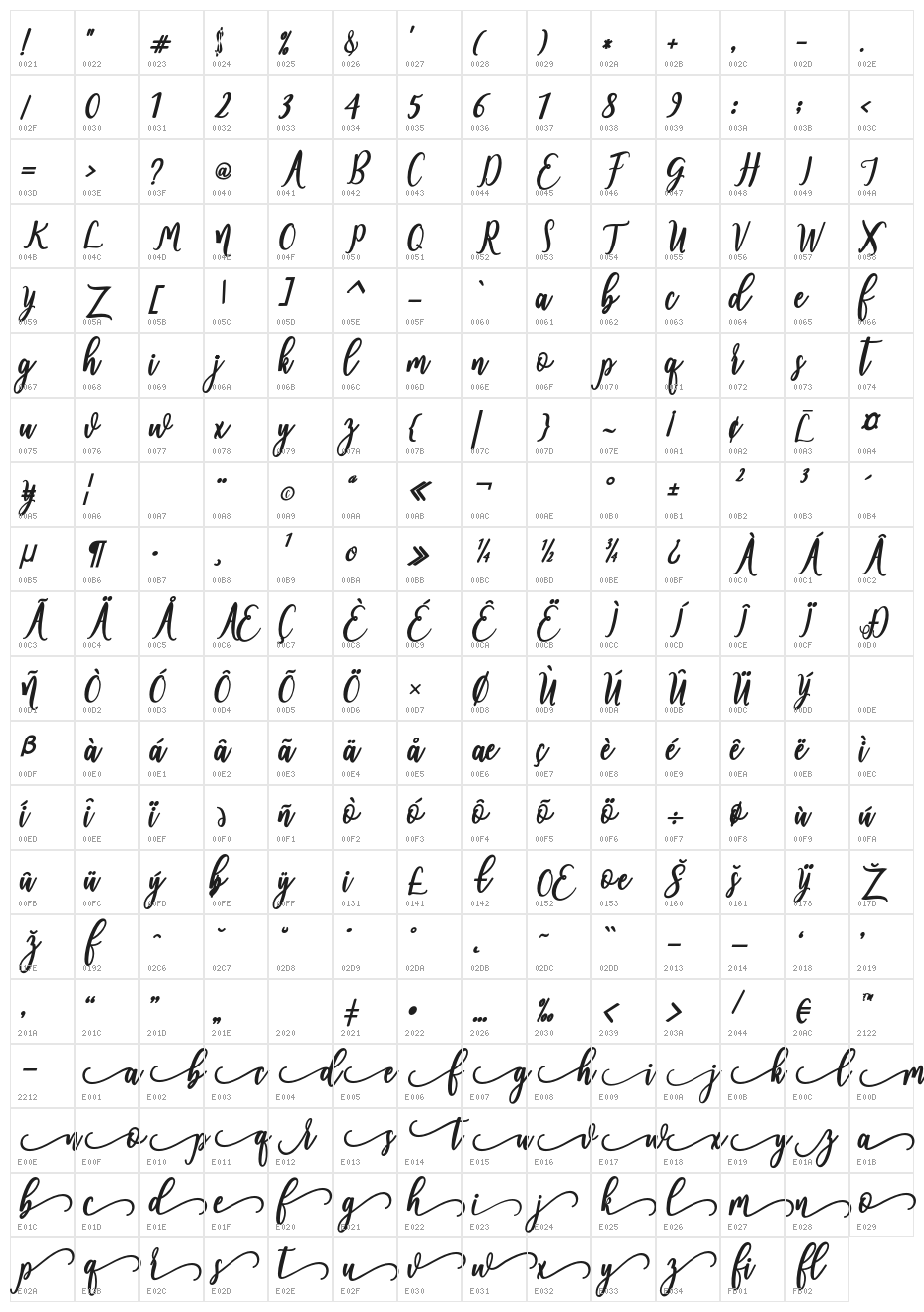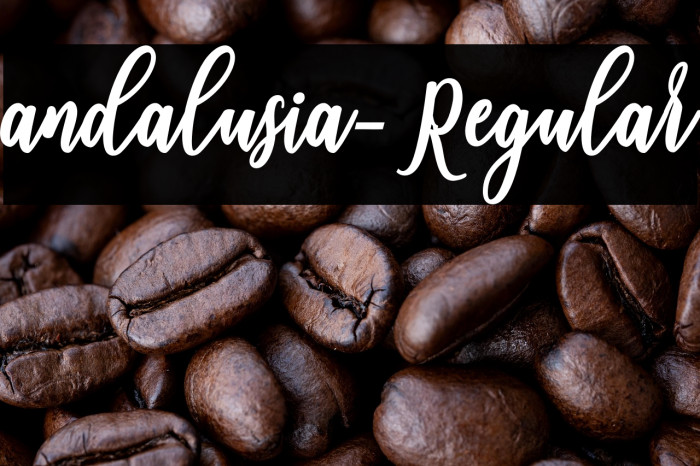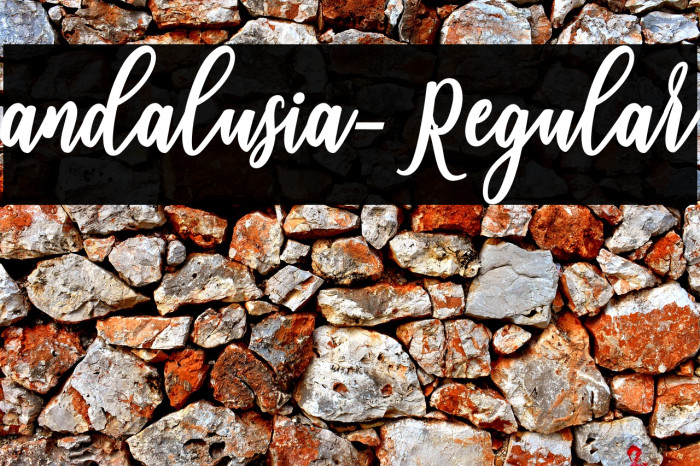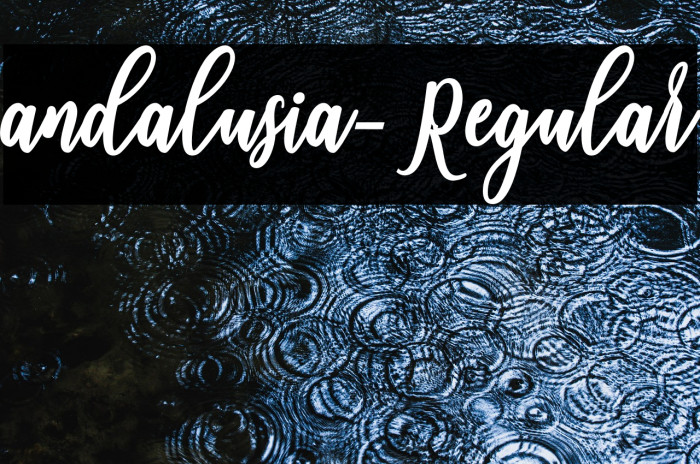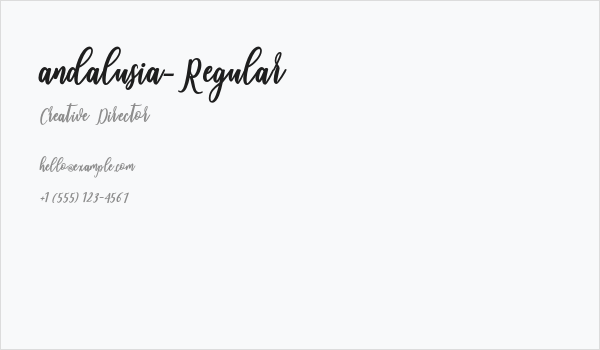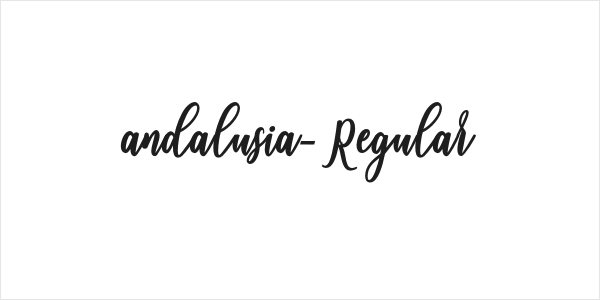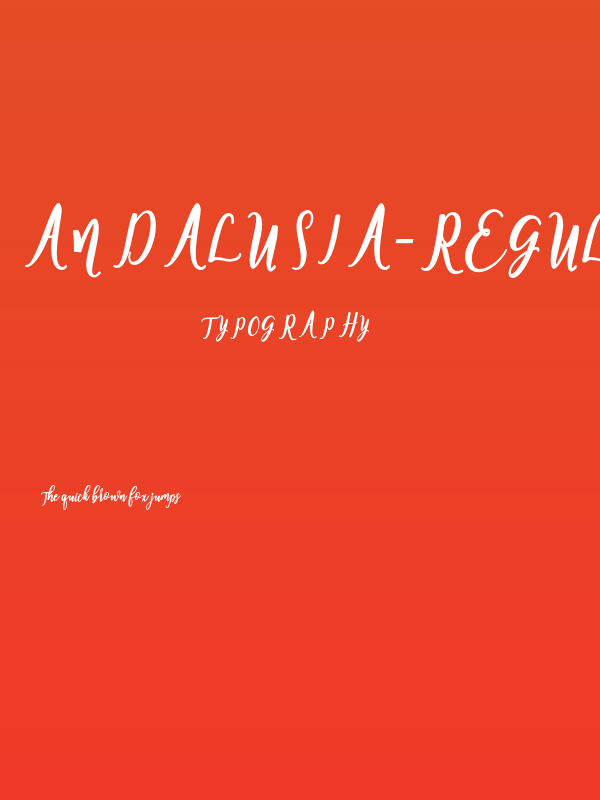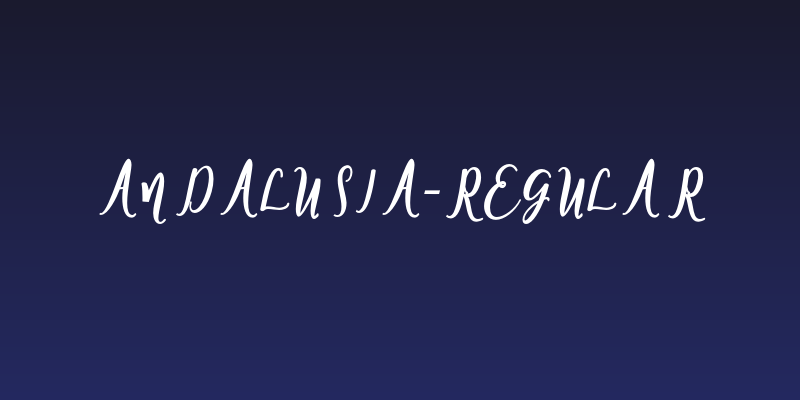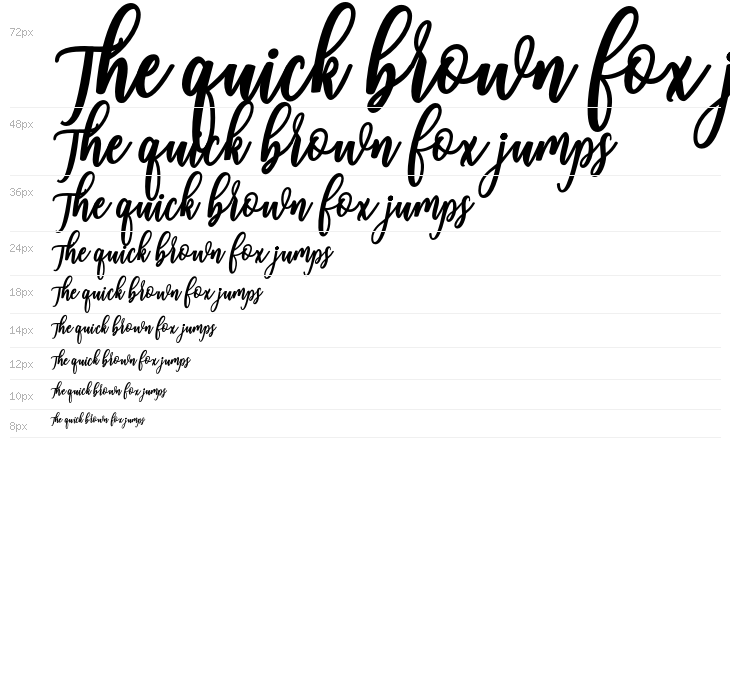
andalusia-Regular Font
andalusia-Regular Description
This font features a flowing, cursive style with elegant, sweeping strokes that give it a handwritten appearance. The uppercase letters are bold and slightly slanted, while the lowercase letters maintain a consistent, fluid motion. The numerals are designed to match the overall script style, providing a cohesive look. Special characters are included, maintaining the same stylistic elements. The font exudes a sense of sophistication and creativity, making it suitable for projects that require a personal touch.